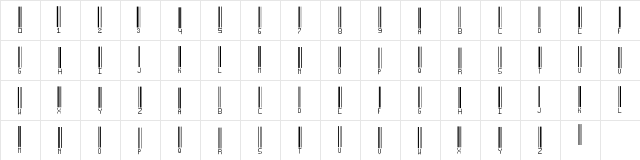
BARCODE TFB Regular
| Designer | kaiser zhar khan |
Design Context for BARCODE TFB Typeface
BARCODE TFB uses fixed-width spacing throughout, giving it the structured, systematic character associated with coding environments and technical documentation.
A natural fit for code editors, technical documentation, developer-focused branding, and terminal-inspired UI.
Pro Tip: Pair BARCODE TFB with a proportional sans for UI contexts where code-style labels and regular body copy need to coexist.